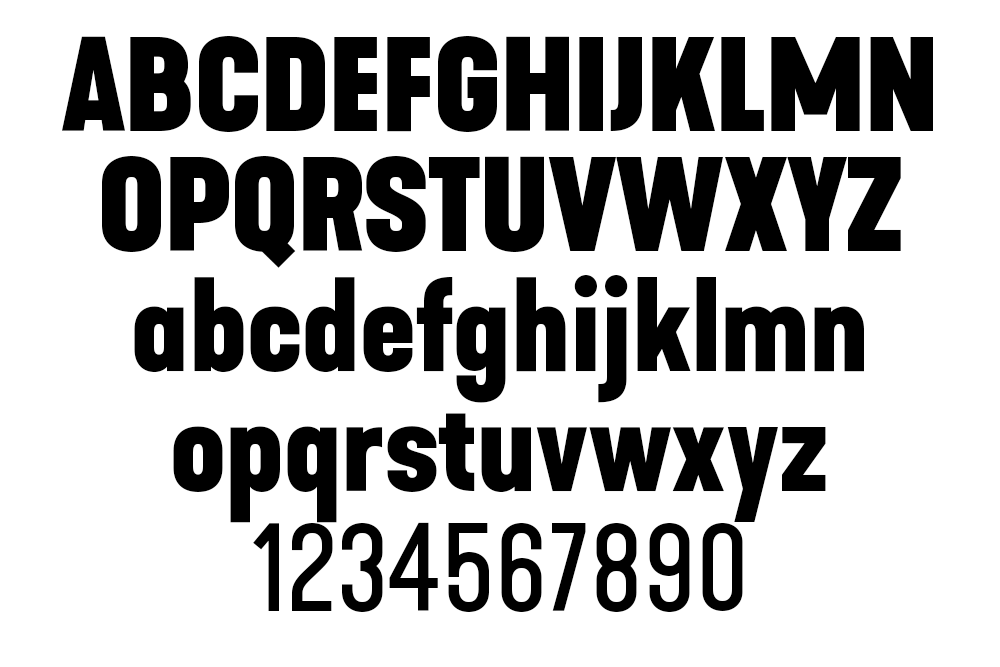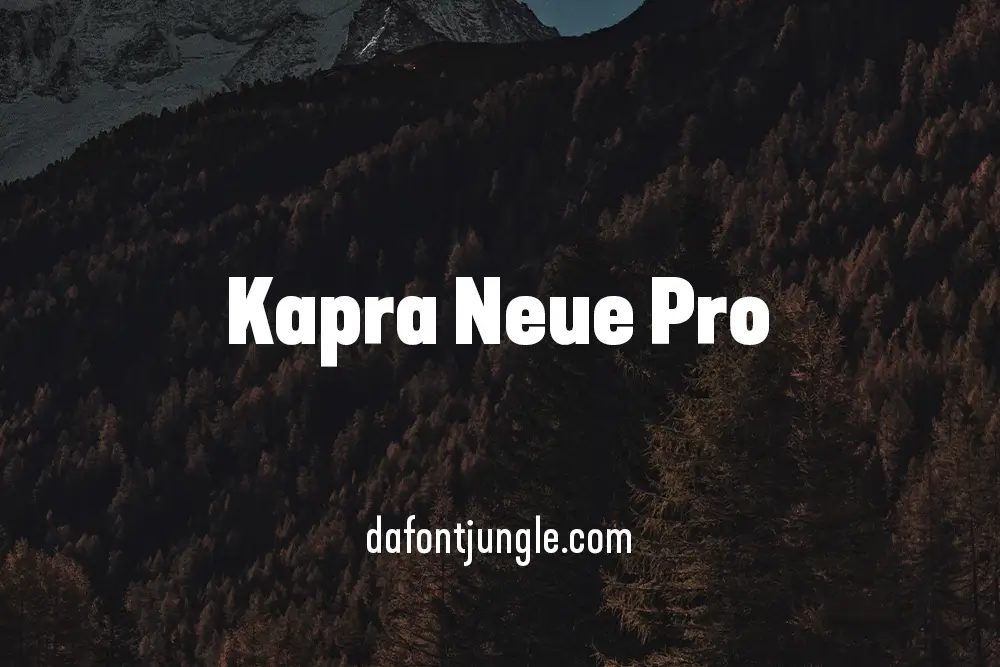
Kapra Neue Pro – Comprehensive Grotesque Font Family
Kapra Neue Pro is a clean and modern sans-serif font. It’s based on the bestselling Kapra Neue and was inspired by a Polish magazine called “You and Me Monthly” from the 1960s. This font family gives you plenty of options with 96 styles. You can choose from Condensed to Expanded widths. Each style also comes in rounded or sharp corners.
Kapra Neue Pro supports Cyrillic, small caps, and old-style numbers. It’s a great choice for branding, books, websites, apps, and multilingual designs.